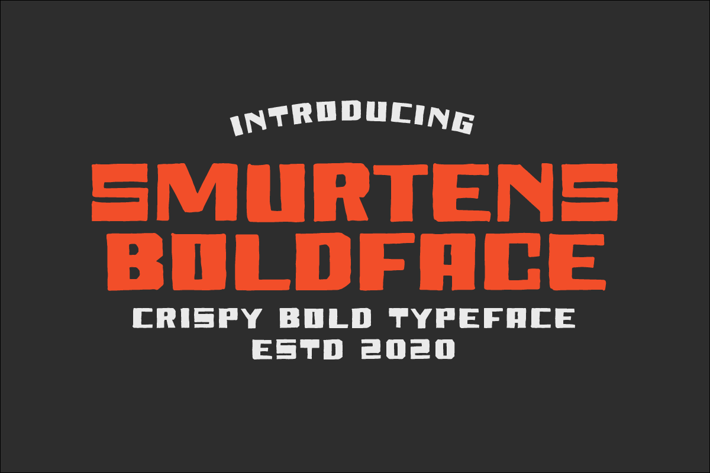
Smurtens Bold Typeface
MartypeCo
Smurtens is a bold typeface inspired by handmade lettering this, typeface is ready to use and suitable rush design like for Modern design, cover book, poster, flyer, vintage, classic, retro etc.
Smurtens Regular
Smurtens Slant